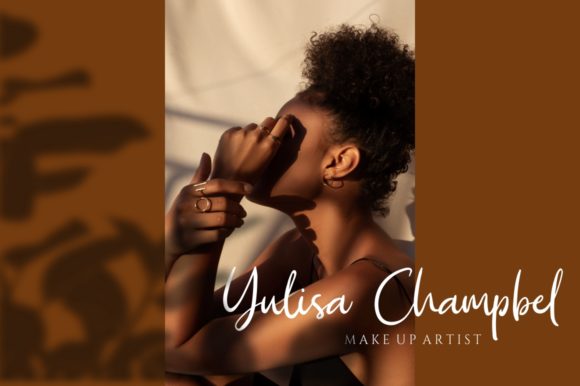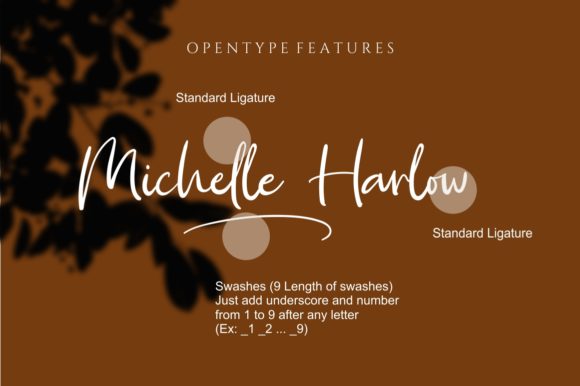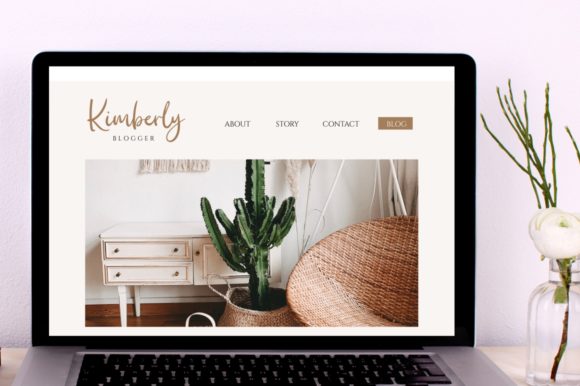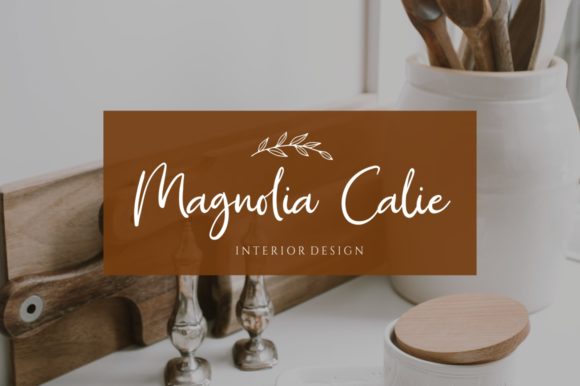
About Kimie Roselyne Font
Kimie Roselyne is a delicate and elegant handwritten font. Its distinct and well rounded letters make this font a masterpiece. Fall in love with its incredibly versatile style and use it to create spectacular designs!